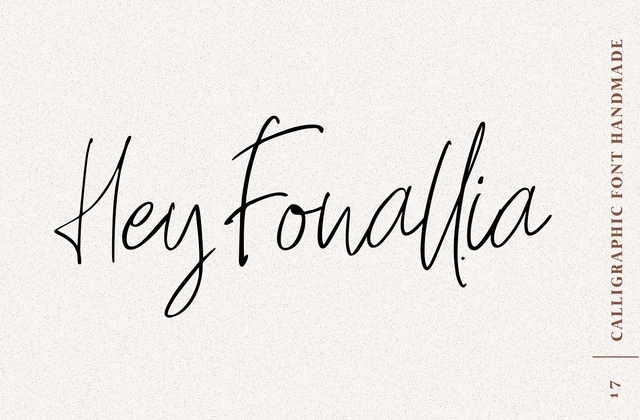
Hey Fonallia Font
Hey Fonallia Font is perfect for friendly greeting card designs, casual social media graphics, approachable brand communications, personal blog headers, warm invitation designs, and cheerful marketing materials. This welcoming typeface excels in community organization promotions, neighborhood business signage, family-oriented branding, and any application where genuine warmth and conversational charm create instant personal connections.
What makes Hey Fonallia Font so exciting is its exceptional ability to capture the spontaneous joy and authentic friendliness of a warm personal greeting through naturally expressive letterforms. The font features conversational curves, approachable proportions, and friendly character shapes that feel like a smile in typographic form. Its genuine warmth makes it perfect for brands and messages that prioritize human connection and authentic communication.
Hey Fonallia Font comes in a cheerful family including Light, Regular, Medium, Bold, and Extra Bold weights. Each style features complete uppercase and lowercase character sets, friendly symbols, welcoming numerals, and conversational punctuation marks. The font family also includes casual alternates, greeting ligatures, and expressive variations that allow designers to create truly personal communications with authentic charm.
This delightful typeface transforms ordinary messages into warm personal greetings that brighten every interaction. Hey Fonallia Font Free Download empowers designers and friendly brands to create communications that build genuine relationships through typography that truly cares about human connection. Whether you're developing brands for community services, creating social media content, or designing materials for people-centered organizations, this font delivers authentic friendliness with professional appeal.
The font's conversational character makes it particularly effective for local businesses, community organizations, personal service providers, and family-oriented brands. Its cheerful readability ensures that Hey Fonallia Font communicates clearly while maintaining its distinctive welcoming personality. The font's ability to create immediate rapport and emotional warmth makes it an invaluable greeting for any project requiring typography that breaks down barriers and connects with audiences through the universal appeal of genuine friendliness and human warmth.